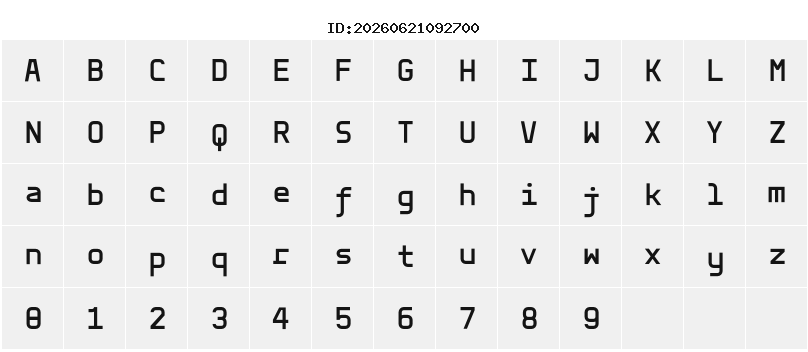
• Font Name: Aber Mono Bold
• Full Font Name: Aber Mono Bold
• Designer: Tom Robin Karlsson
About Aber Mono Bold.otf
Aber Mono Bold.otf is a modern, elegant sans-serif font designed for ultimate readability and visual harmony. Perfect for branding, headlines, web design, and print materials.